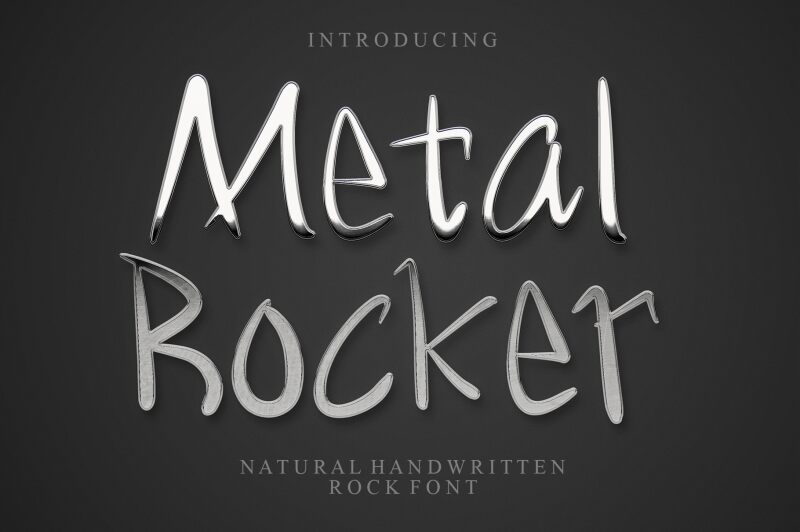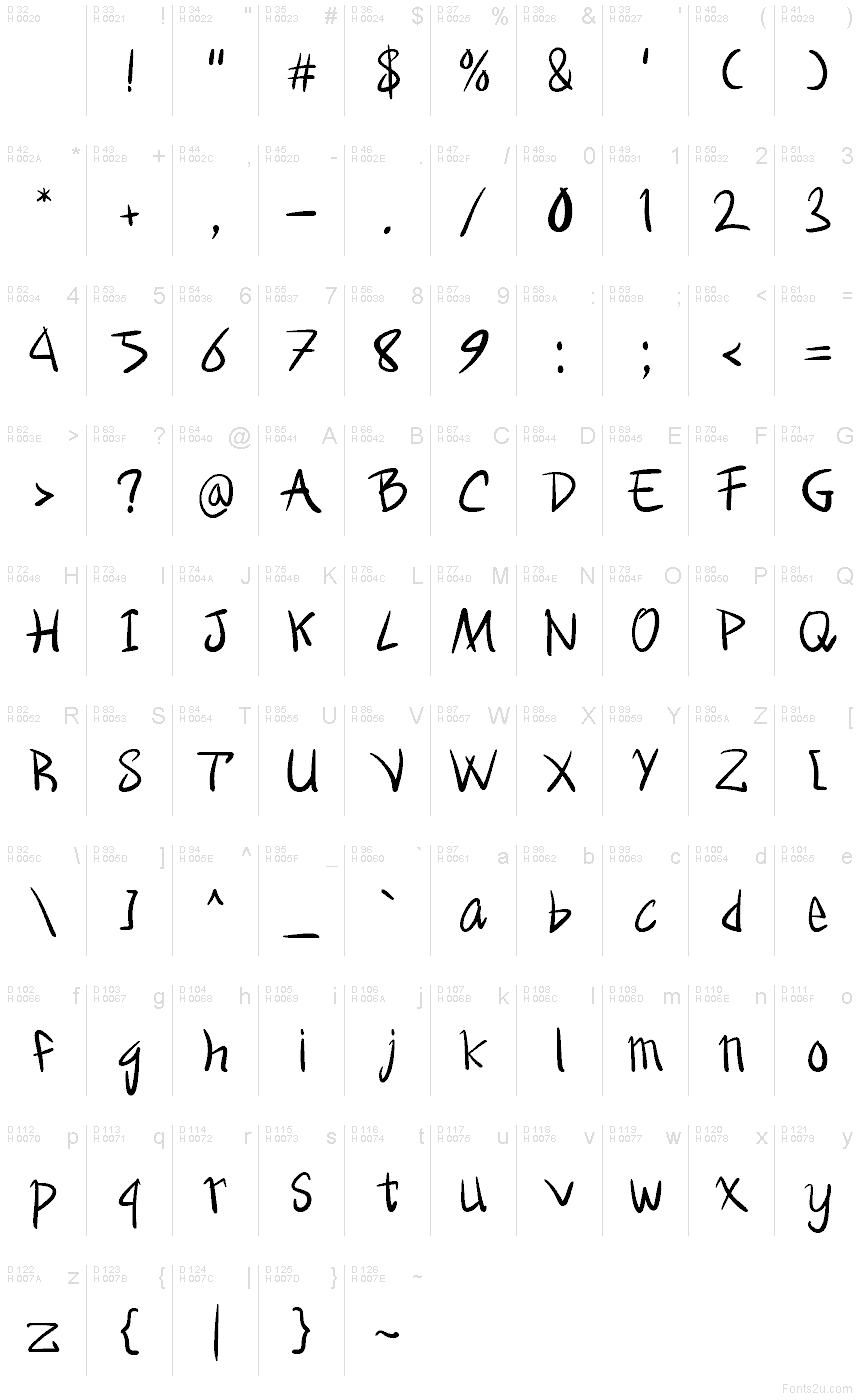
Metal rocker
Metal rocker font by Letterafa Studio is a free handwritten font. Its wiry strokes and slightly jagged edges feel like fresh marker on gritty paper—raw, quick, and full of attitude. Narrow letterforms keep words tight and punchy, while the bounce in the rhythm adds human energy without losing readability.
This free font shines on gig posters, album covers, streetwear branding, zines, event flyers, YouTube thumbnails, and stickers. Using Metal rocker gives headlines a scuffed, live‑show urgency that grabs attention fast. For balance, pair it with a clean sans for body copy and let Metal rocker take the lead at larger sizes.